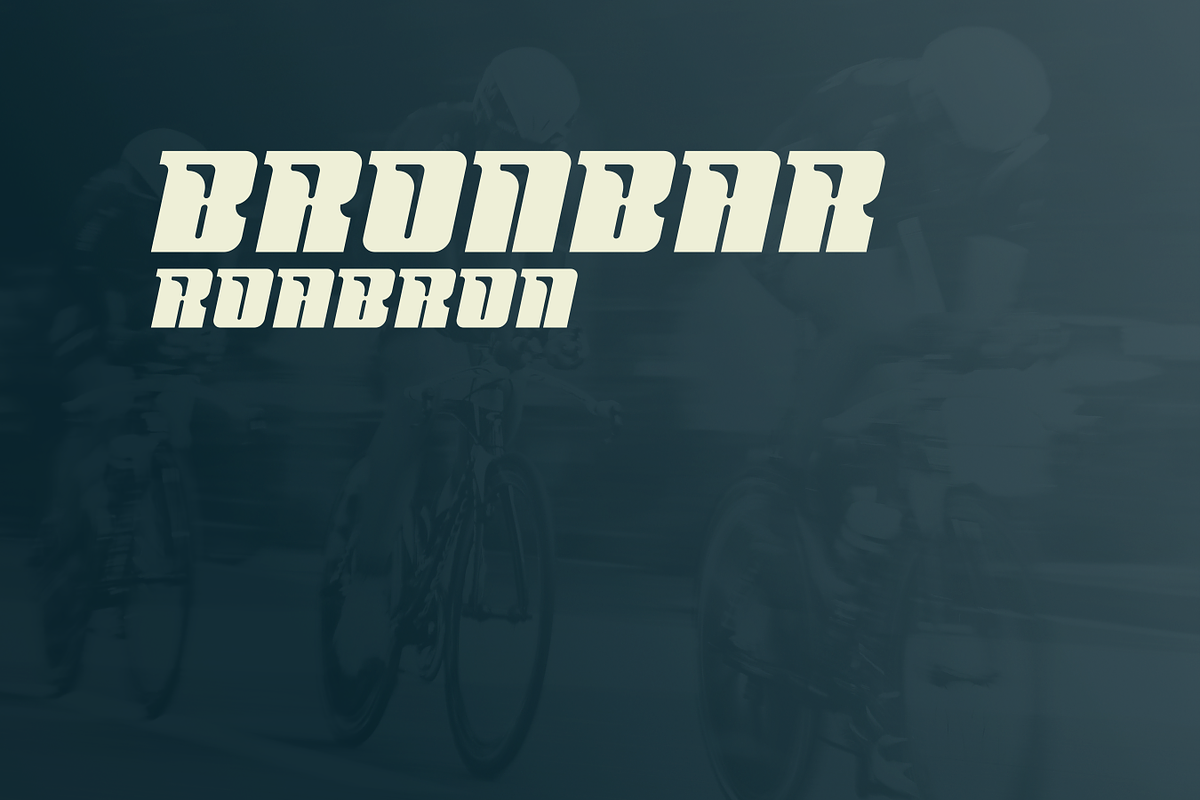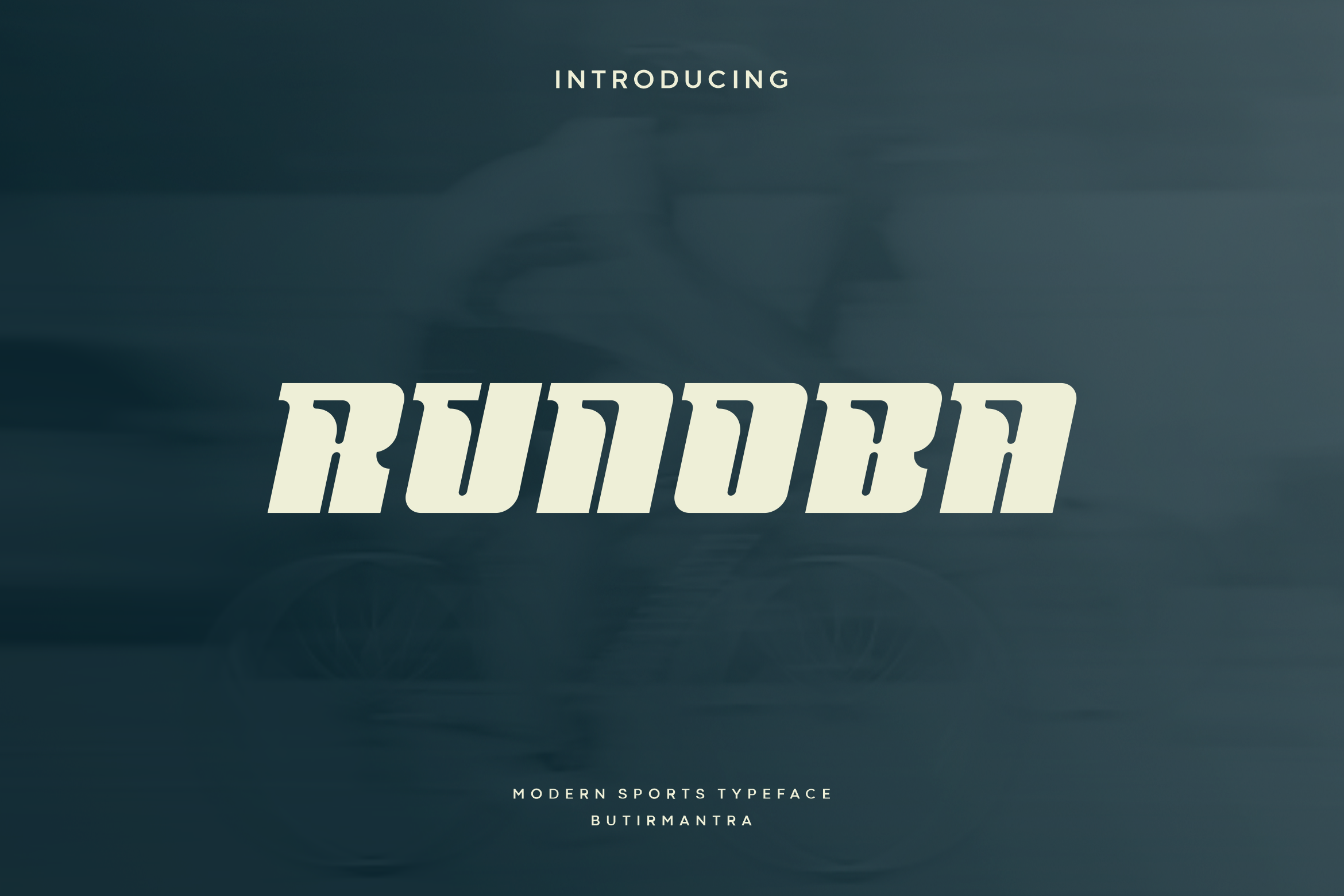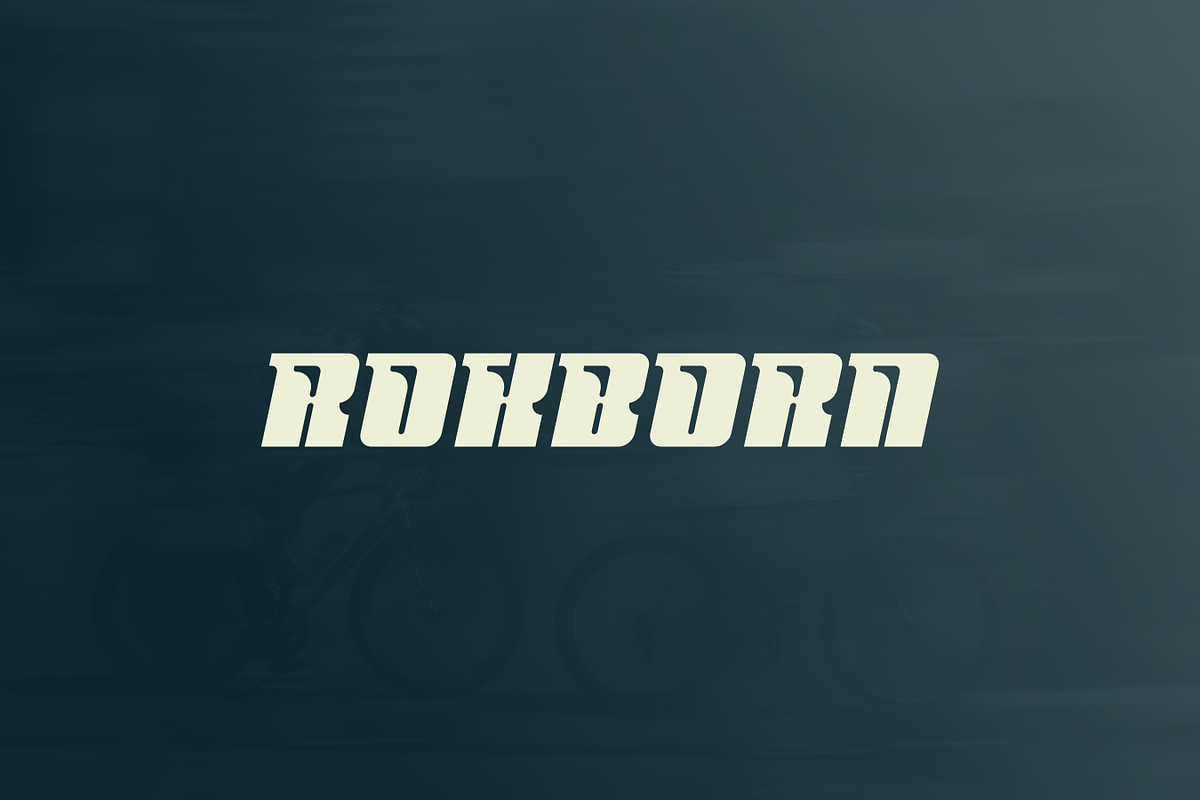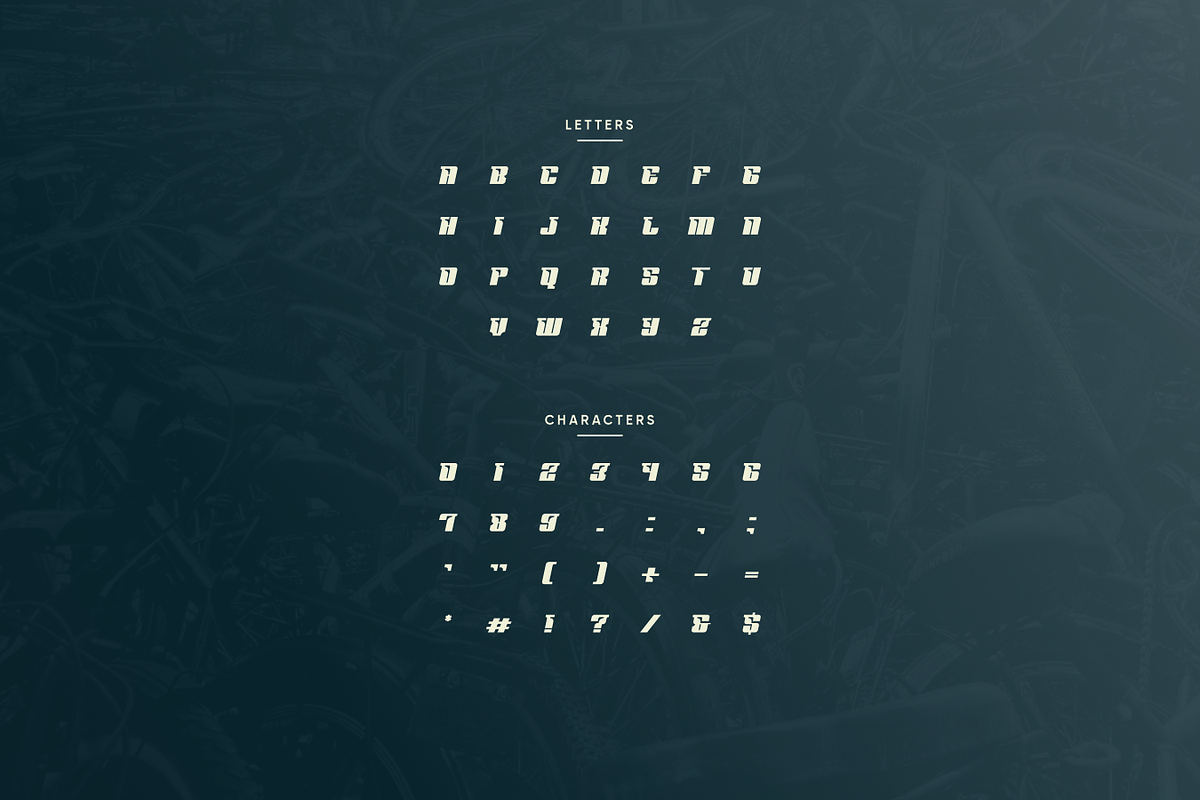
Runoba - Modern Sport Typeface
Runoba is modern letter cutout and dynamic slant, a font that combines future and sport which makes it even more powerful. Coming with all-caps makes it stand out, it will be a great fit for logo, headline, poster, magazine, game, or other modern dynamic text. Grab this for a new and fresh design experience, and good luck with your project!
- Punctuation & Number